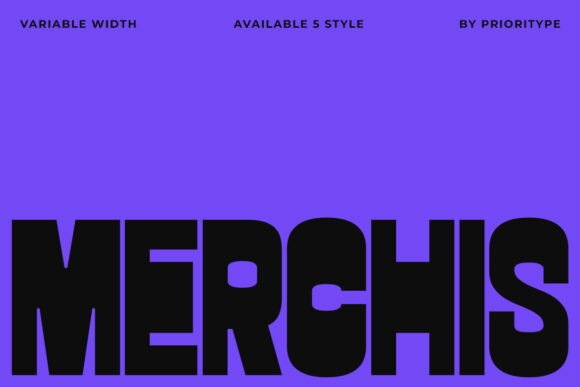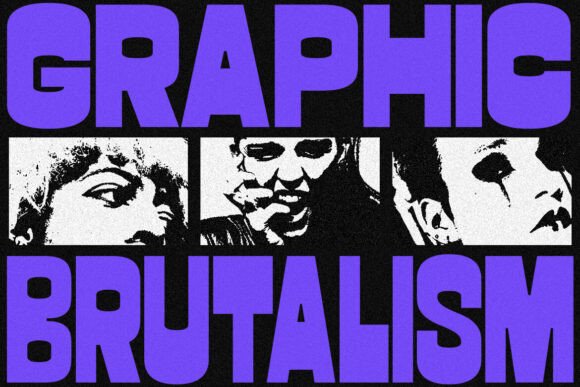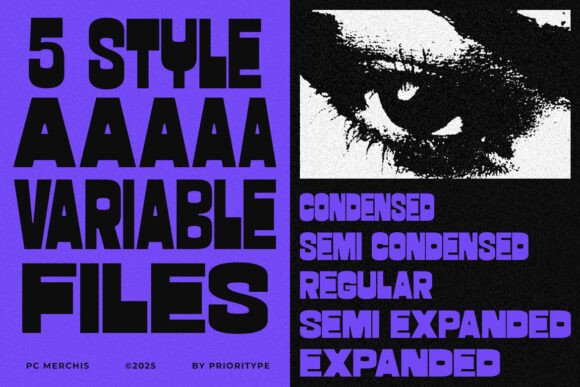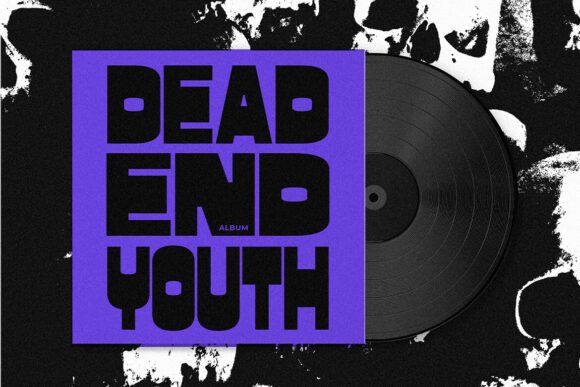
PC Merchis Font
About the PC Merchis Font
Introducing the PC Merchis Font, a beautifully crafted typeface designed to elevate your creative projects. PC Merchis – Modern Brutalism Font
PC Merchis is a bold display font designed for posters with a strong, impactful presence. Featuring five widths (Condensed to Expanded), it offers versatility to create striking visuals that are both fierce and stylish. Whether for branding, headlines, or statement designs, PC Merchis ensures your typography stands out with power and character.
PC Merchis excels in large-scale applications such as headlines, posters, and branding projects where a bold, commanding presence is desired. Its versatility across five widths allows for impactful logo designs or striking visual hierarchies in promotional materials. However, its strong weight and geometric forms make it unsuitable for body text or UI elements requiring high readability.
Its brutalist aesthetic is best suited for brands projecting strength, modernity, and a certain level of edginess. Think architecture, technology, or fashion labels aiming for a powerful, impactful image.
Pairing PC Merchis with a clean sans-serif like Futura for supporting text or a delicate script font like Great Vibes for subtle accents creates a pleasing contrast. For a more unified but less severe feel, consider pairing it with a slightly rounded geometric sans-serif like Montserrat.
PC Merchis Font Usage Examples
PC Merchis Font Example